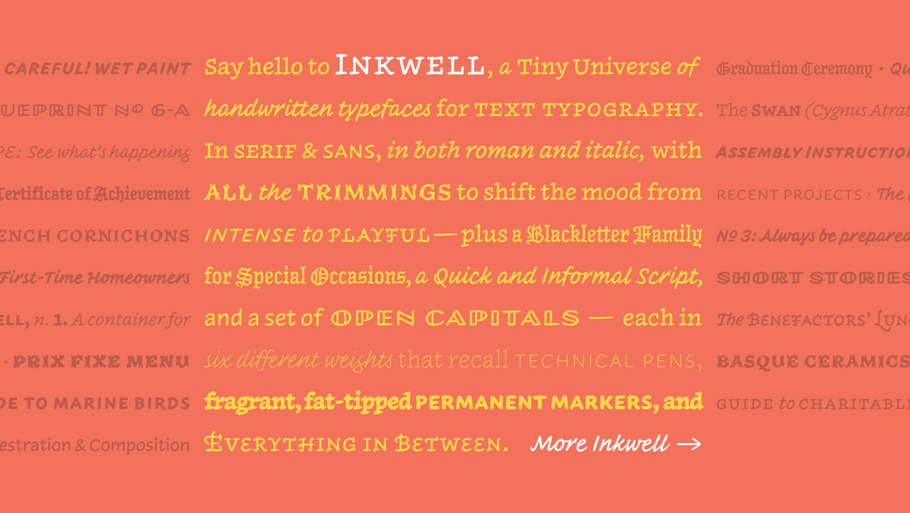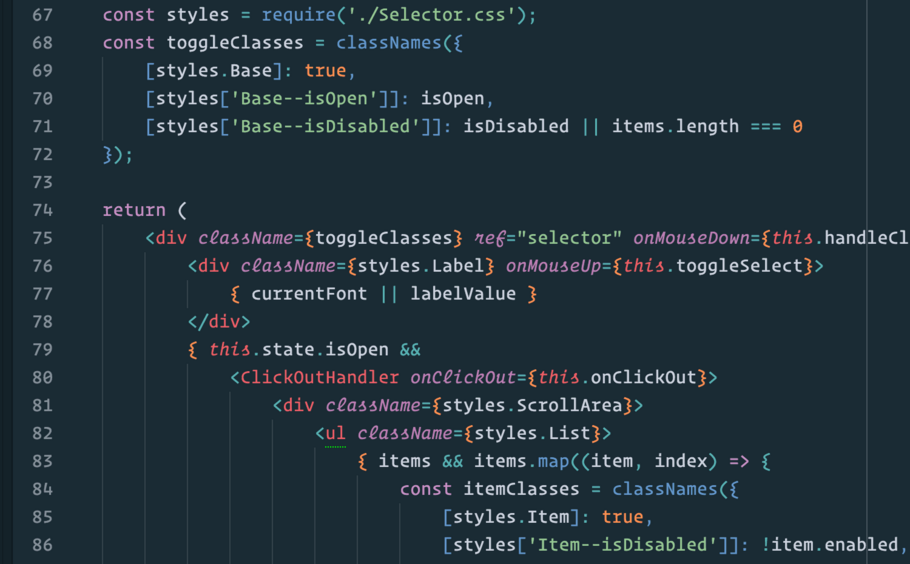
An extended family of typefaces shaped by a common writing tool, Inkwell’s many voices are designed to give rise to new kinds of typographic relationships.
Exploring the voice and functionality of typewriter faces, Operator includes two families: one with the rhythm and character of an editorial typeface, the other designed to improve the look of code.
Initially inspired by the markings on watch dials, Decimal not only evokes the confident lettering of classic timepieces, but uses design strategies that help it master information-dense environments.
Jordan Bell is a letterer and Senior type designer at Monotype. He is fascinated by handwriting and its effect on modern type design as well as early American typefounding. Originally from Texas, Jordan received a BFA from Abilene Christian University and then worked as a graphic designer in Santa Fe, NM before attending the MATD program at University of Reading in the UK to further his knowledge in design history, graphic communication, and typeface design.
Prior to joining Monotype, Jordan worked on a variety of projects at Hoefler&Co. including Operator, Inkwell, and Decimal, which was featured in the Netflix series “Abstract” and used throughout President Biden’s campaign. Other projects he has enjoyed contributing to include Archer, Ringside, and Sentinel Pro.